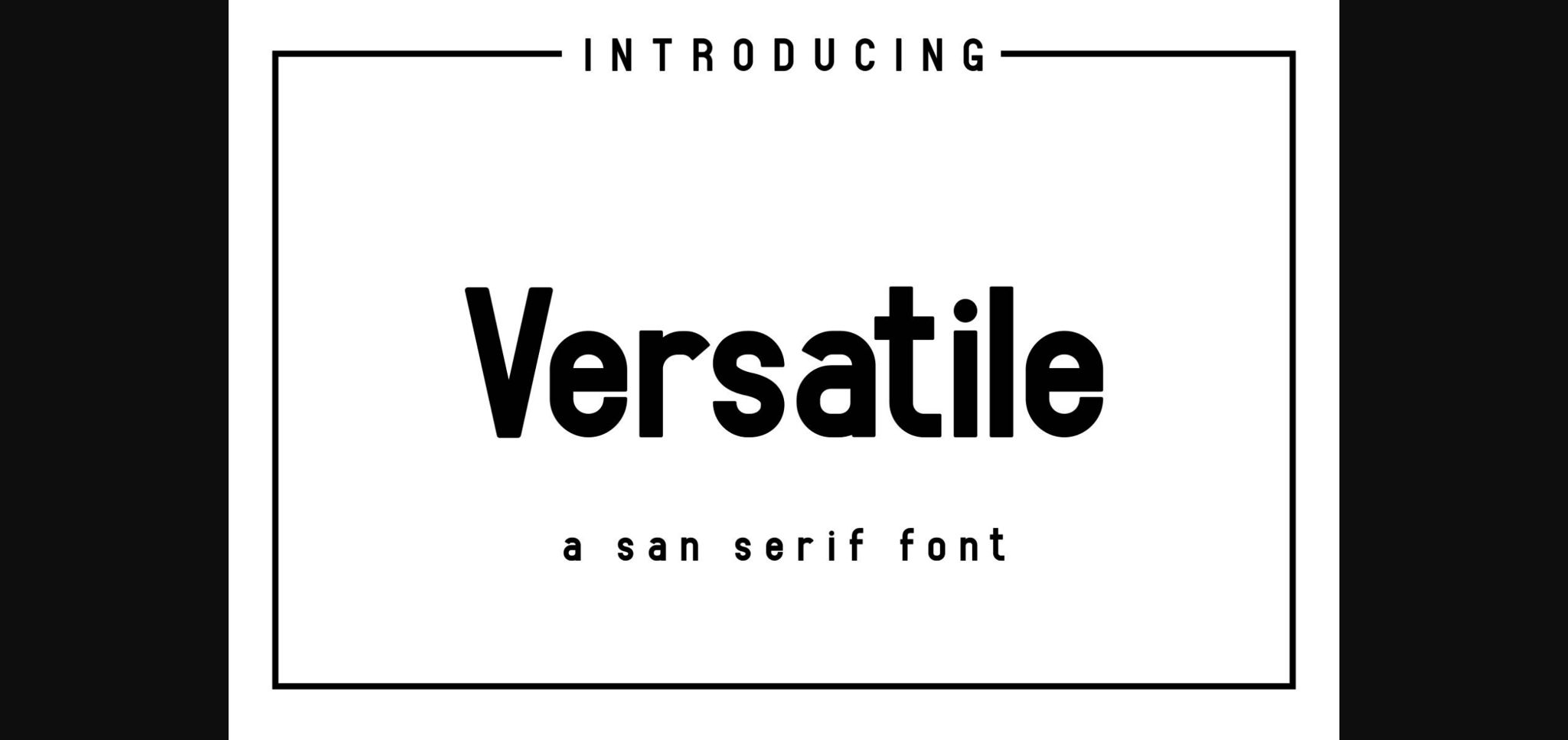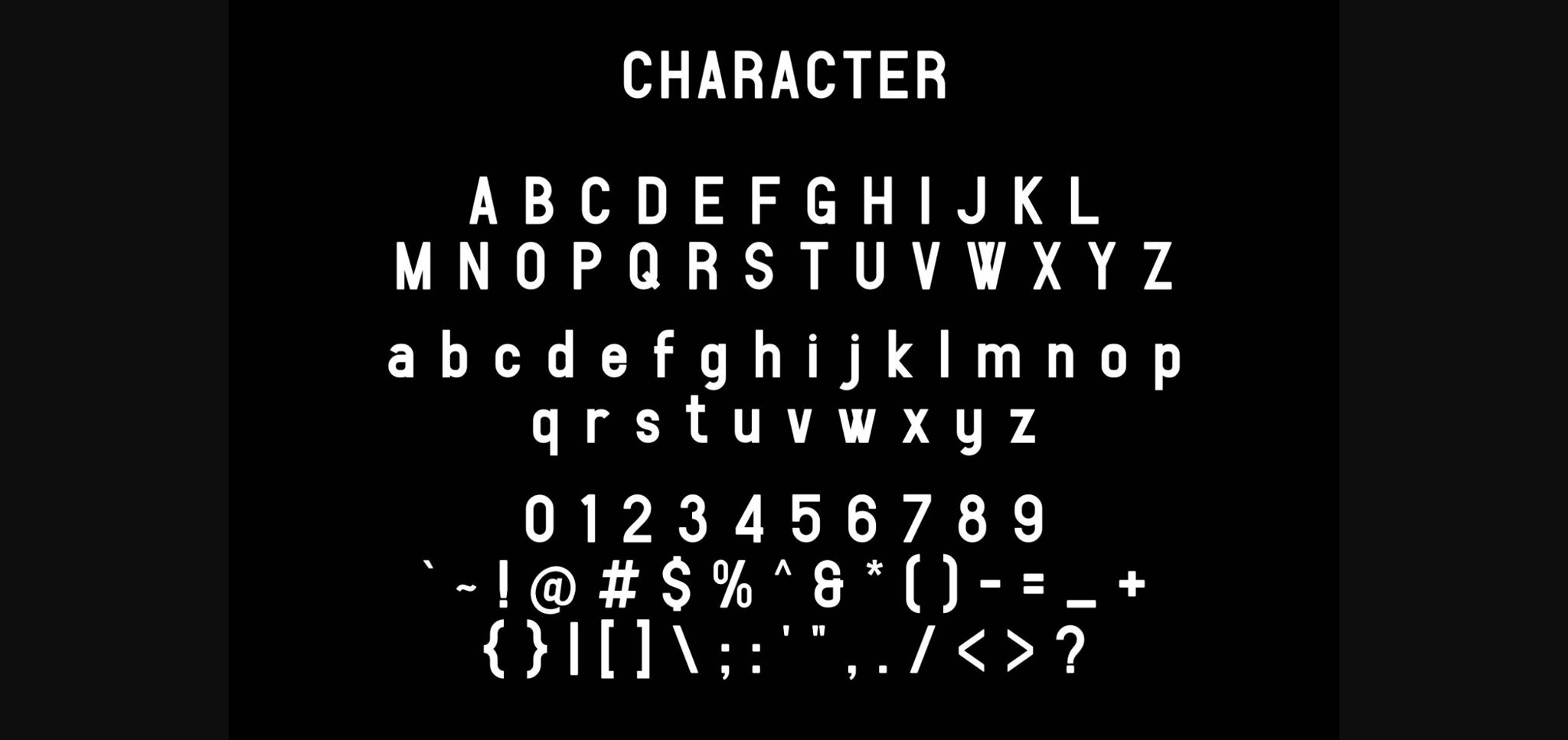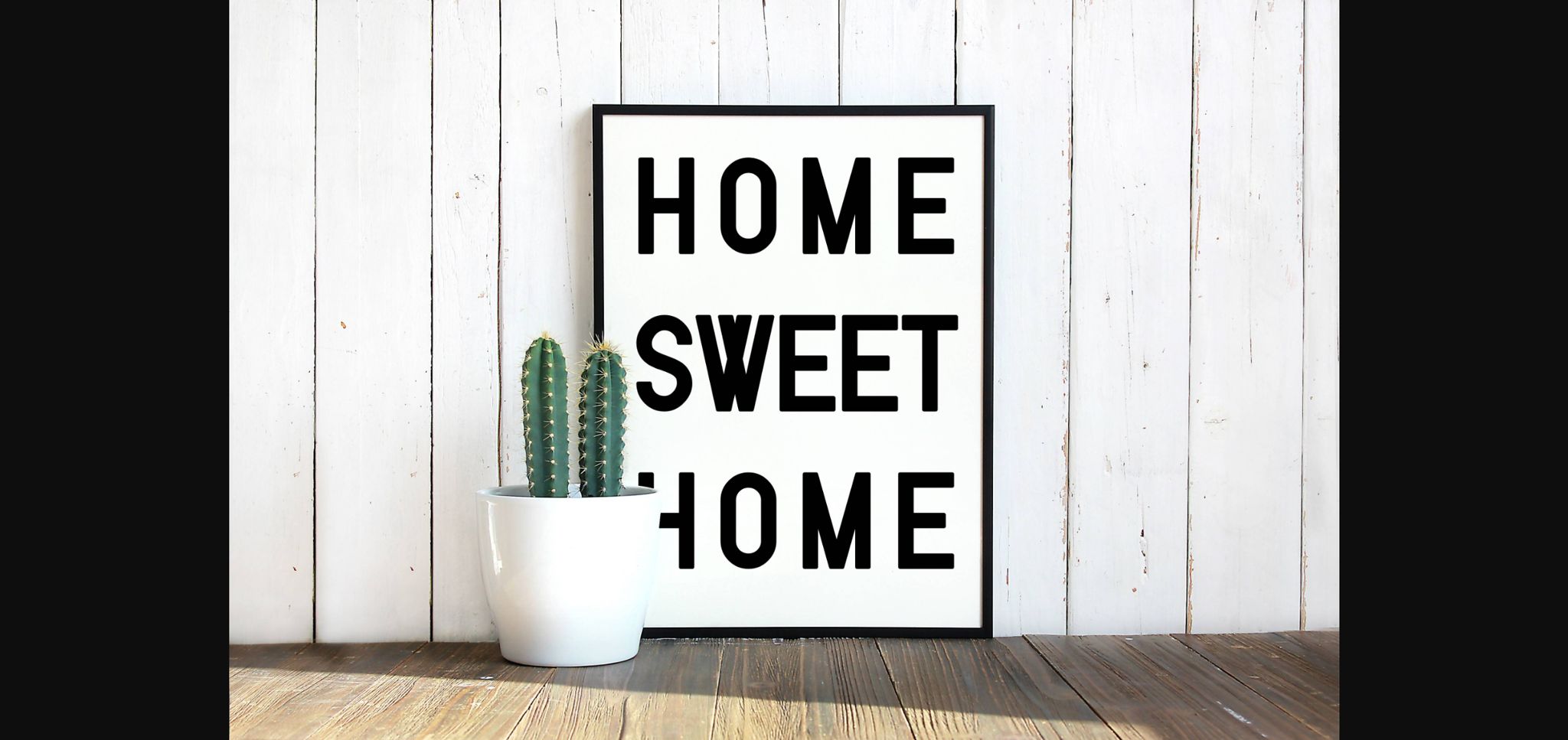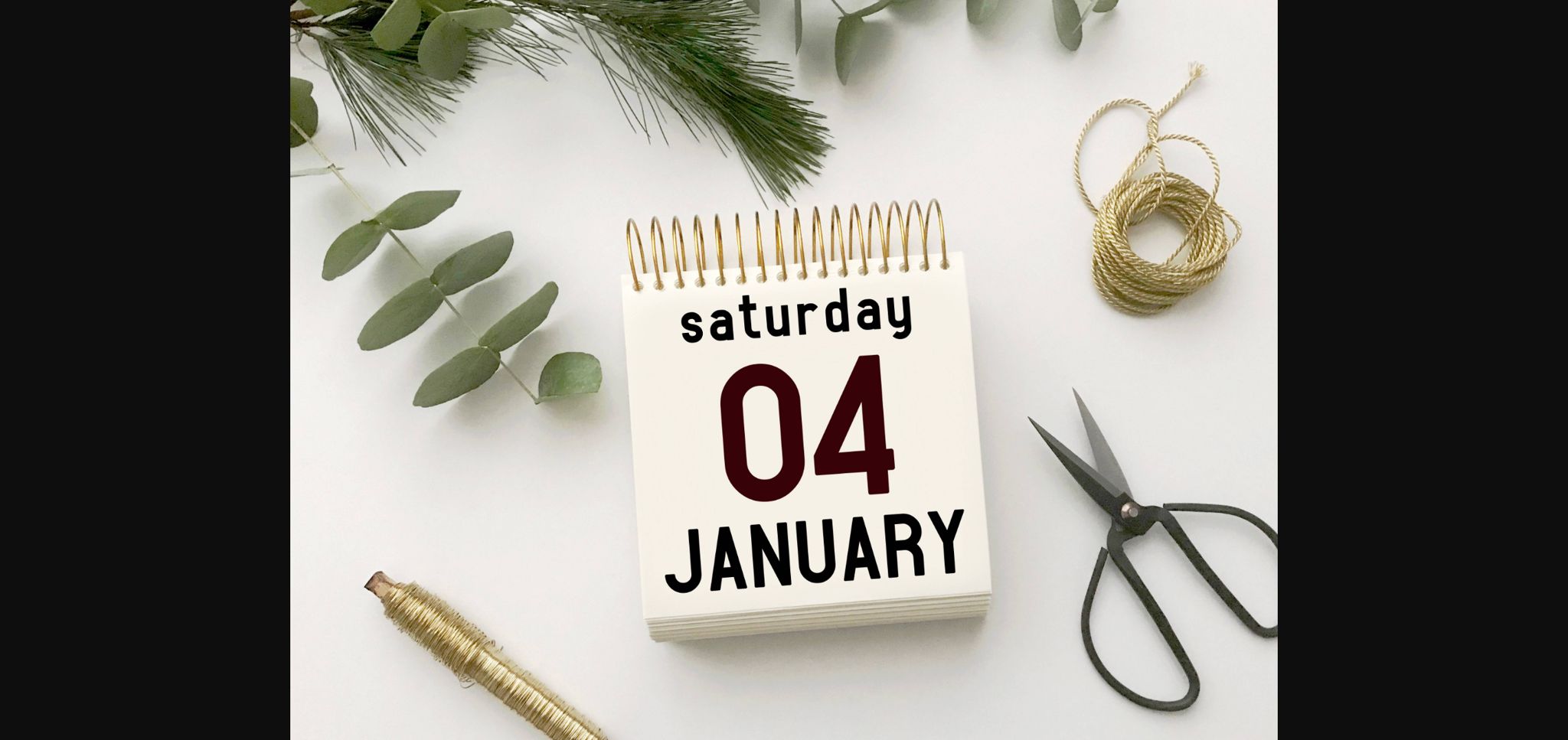
Versatile Font
About Versatile Font
Just like its name, this font is truly versatile. With its clean, yet smart look, Versatile is the ideal font to use in logos, magazines, posters, banners, advertisements, Social Media and many more projects!